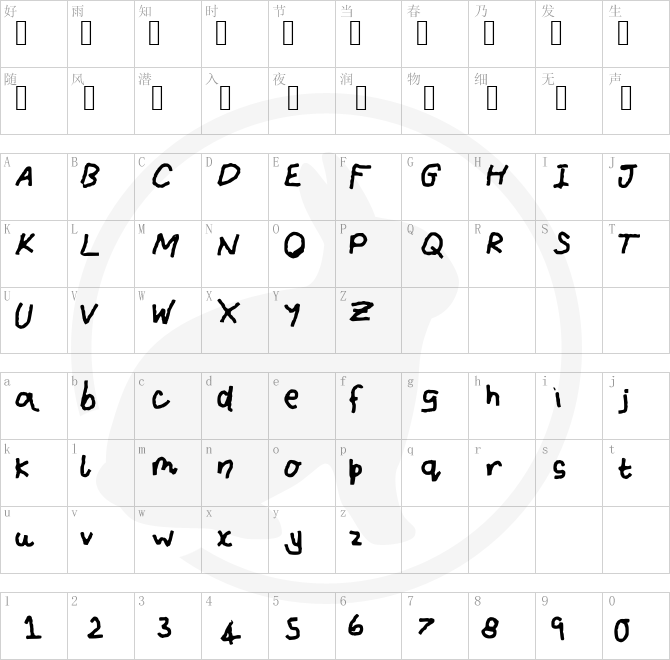
- Font Name:IAmTheCrayonMaster
IAmTheCrayonMaster.ttf is a very beautiful artistic font, IAmTheCrayonMaster.ttf is widely used in the design and printing of various books and pictures,IAmTheCrayonMaster.ttf has a strong visual impact,IAmTheCrayonMaster.ttf is a commonly used font in newspapers, magazines and books, and is used in posters, e-commerce Poster design, store design, logo design, font design and other fields.IAmTheCrayonMaster.